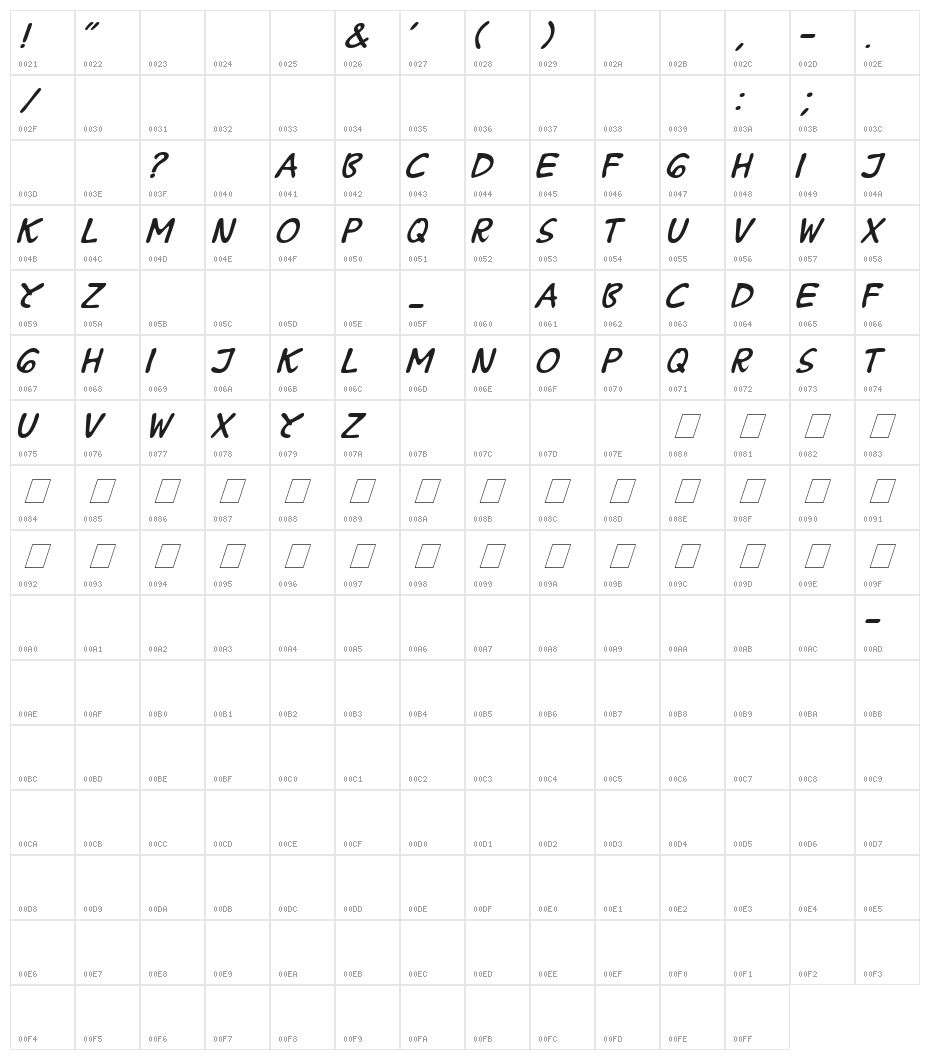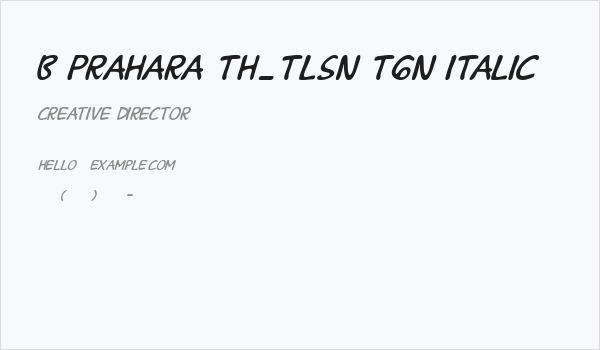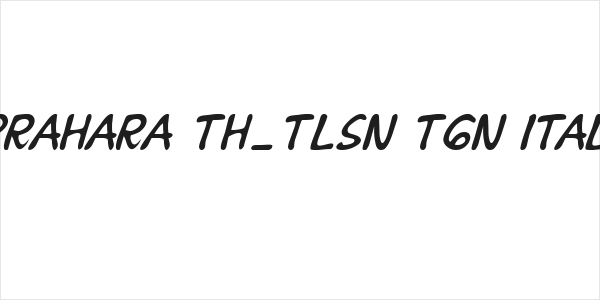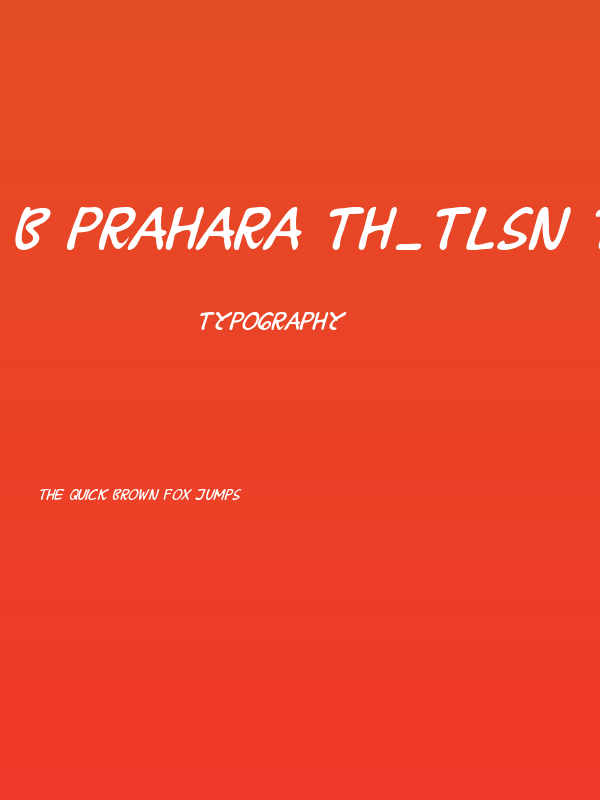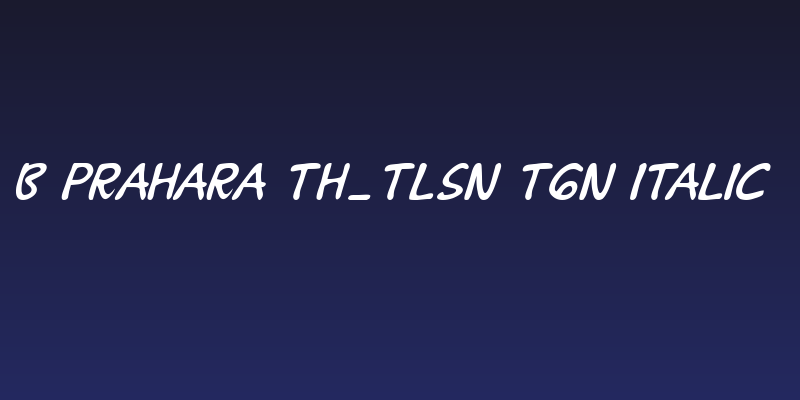
B Prahara TH_Tlsn Tgn Italic Font
B Prahara TH_Tlsn Tgn Italic Description
This font features a dynamic and flowing script style, characterized by its italicized and slightly slanted letterforms. The strokes are smooth and continuous, giving it a handwritten appearance. The uppercase and lowercase letters maintain a consistent style, with rounded edges and a casual, friendly feel. The numerals and special characters are designed to match the overall aesthetic, ensuring a cohesive look across all text. This font's playful yet elegant nature makes it suitable for a variety of creative applications.
| Proposed Projects | Ideal for greeting cards, invitations, branding, and social media graphics. |